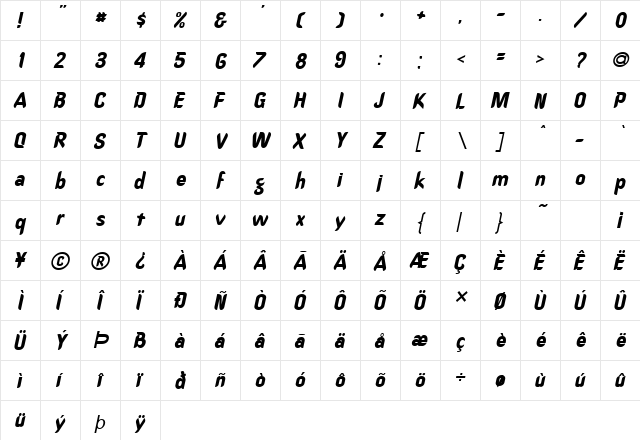
Callimarker Italic
Design Context for Callimarker Typeface
Callimarker offers clean, dependable letterforms without strong stylistic allegiance, making it a practical choice for designers who need flexibility. The slanted form adds forward momentum and visual energy.
Pro Tip: Use Callimarker for emphasis, pull quotes, and subheadings where its slanted energy can add rhythm to the layout.